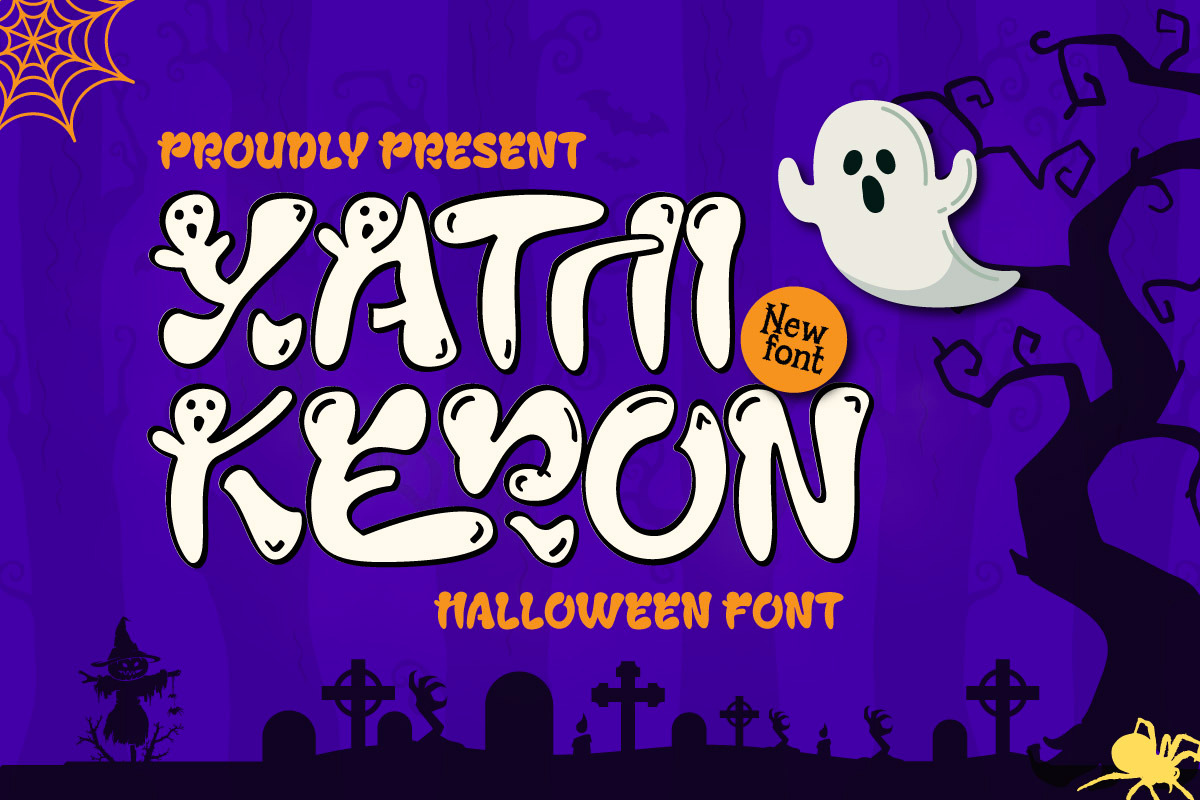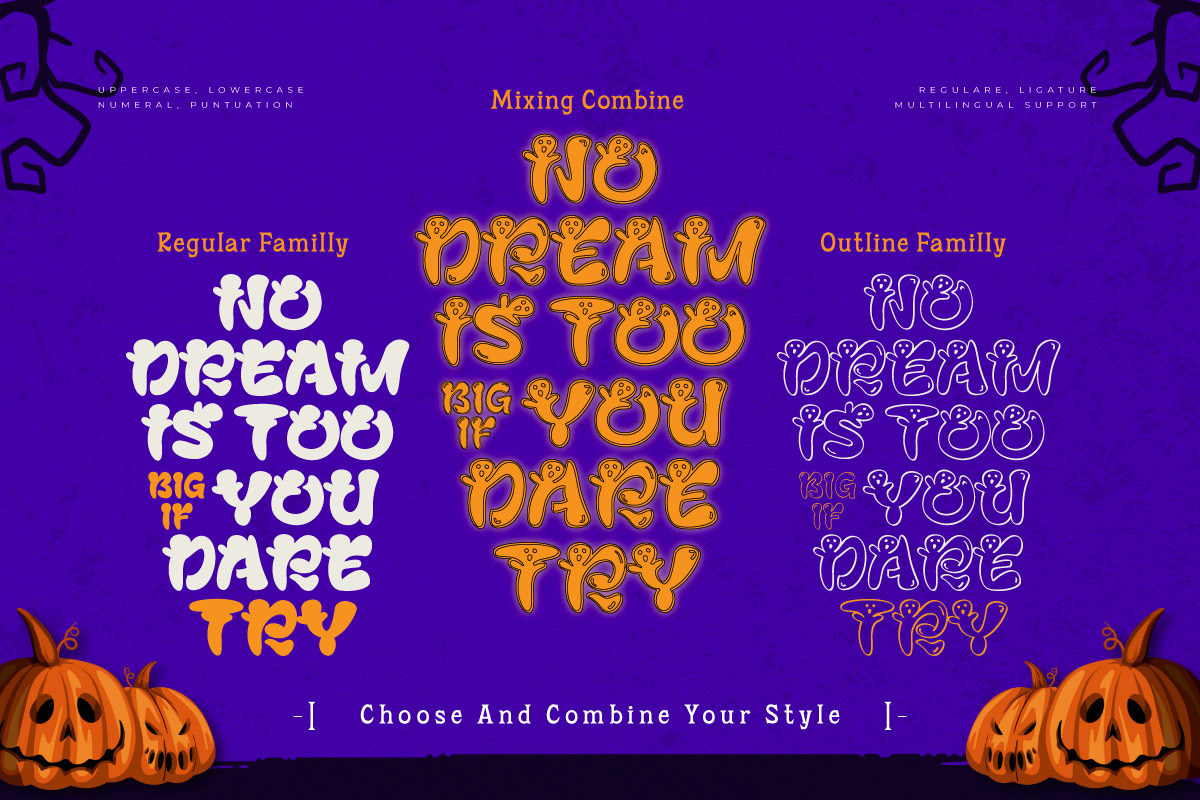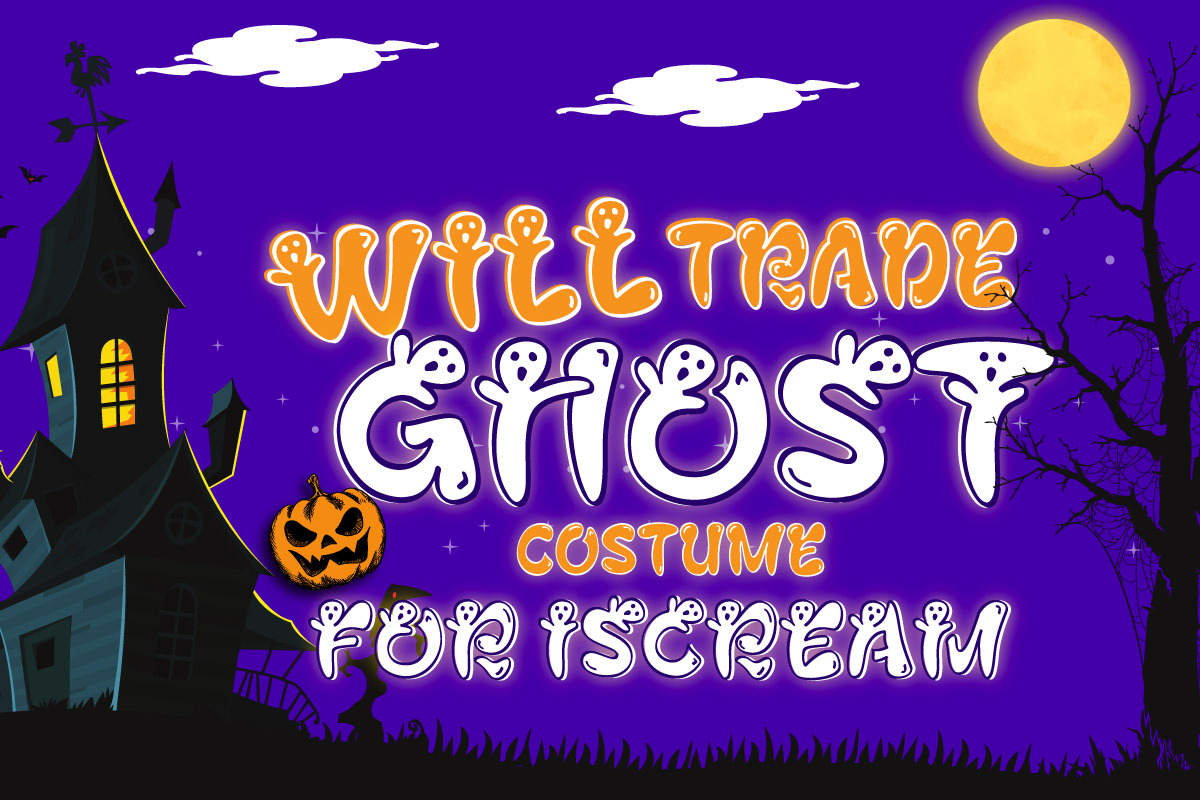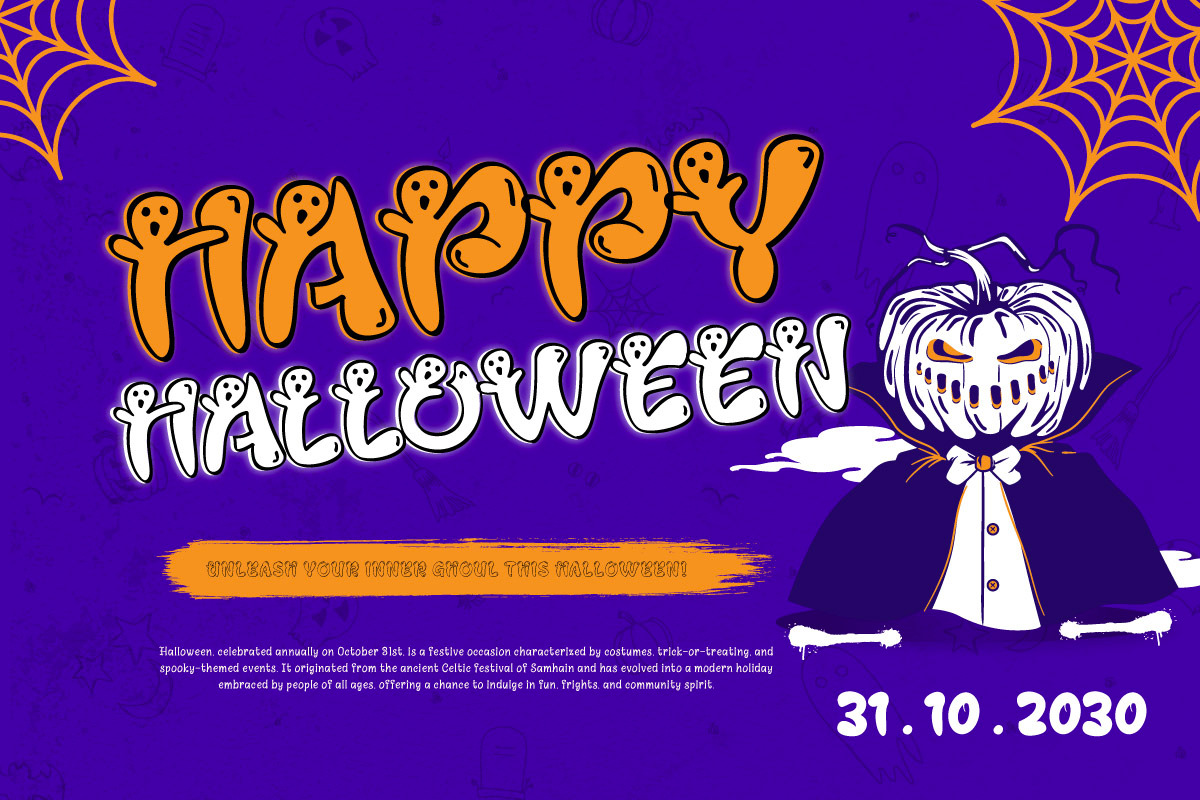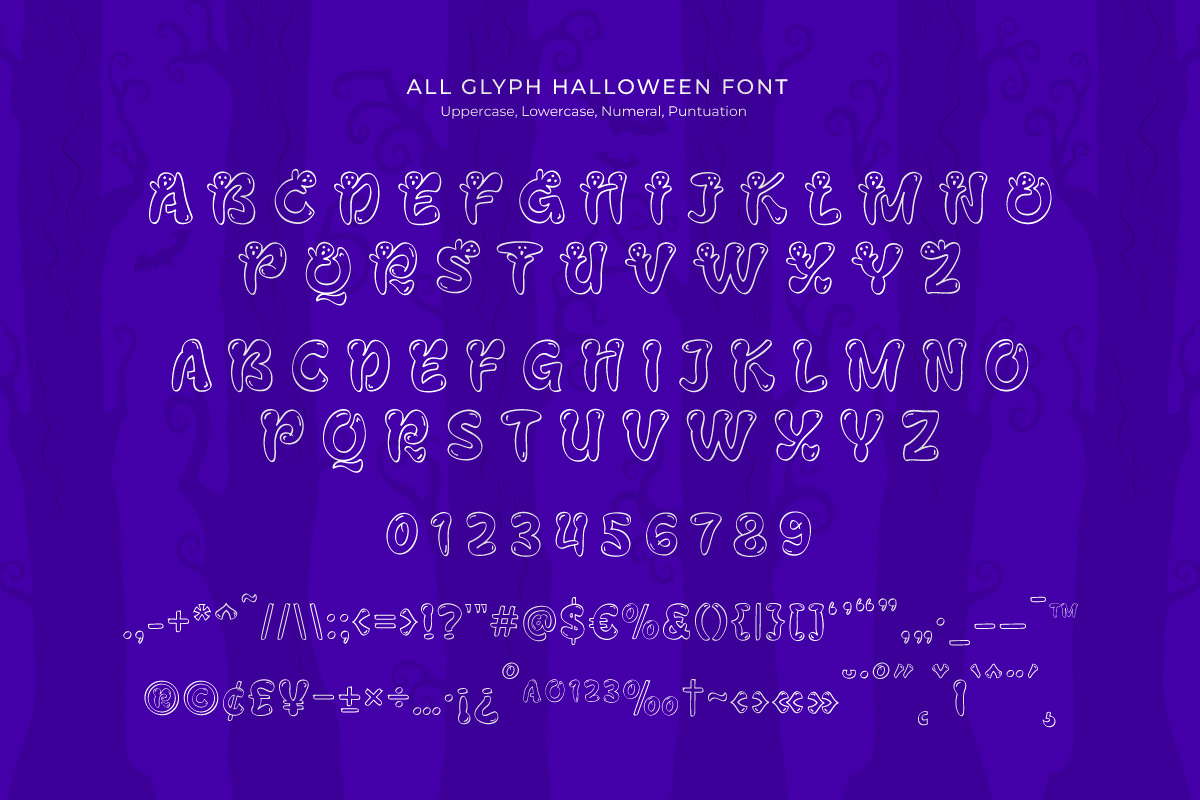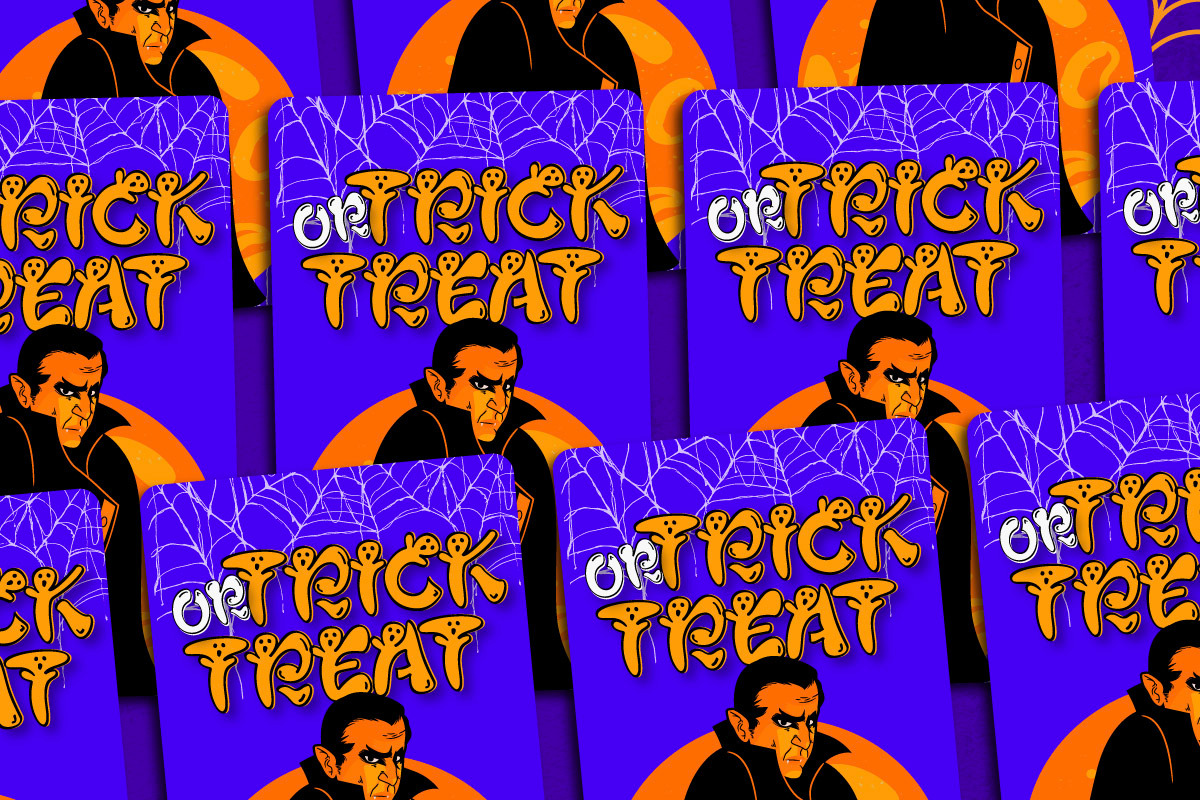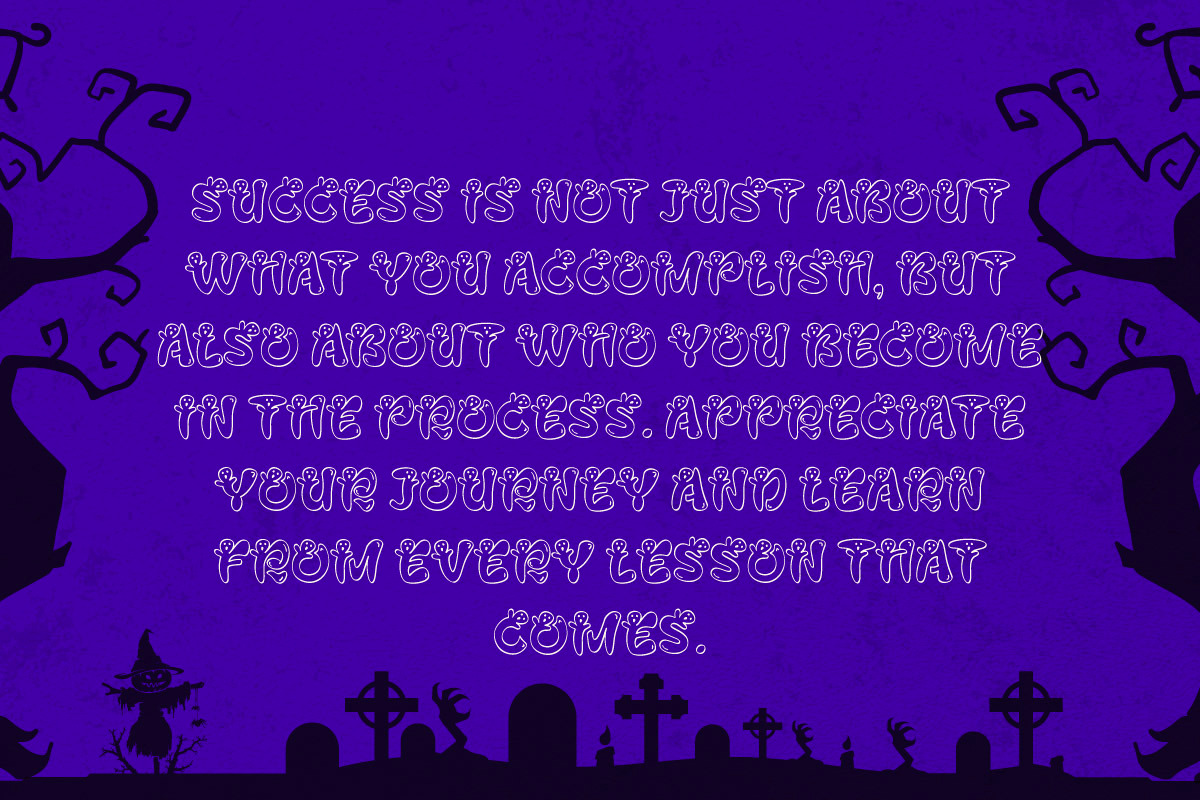
Xathi Keron - Halloweeen Font
Xathi Keron - Halloween Cute Font combines spooky and cute elements, making it perfect for playful Halloween-themed designs. Its charming and quirky letterforms bring a light-hearted, fun atmosphere to projects like party invitations, children's books, festive decorations, and candy packaging. Xathi Keron adds just the right amount of spooky charm without being too scary, making it ideal for kid-friendly and whimsical Halloween creations.
Brighten up your Halloween projects with the delightful and spooky-cute Xathi Keron!